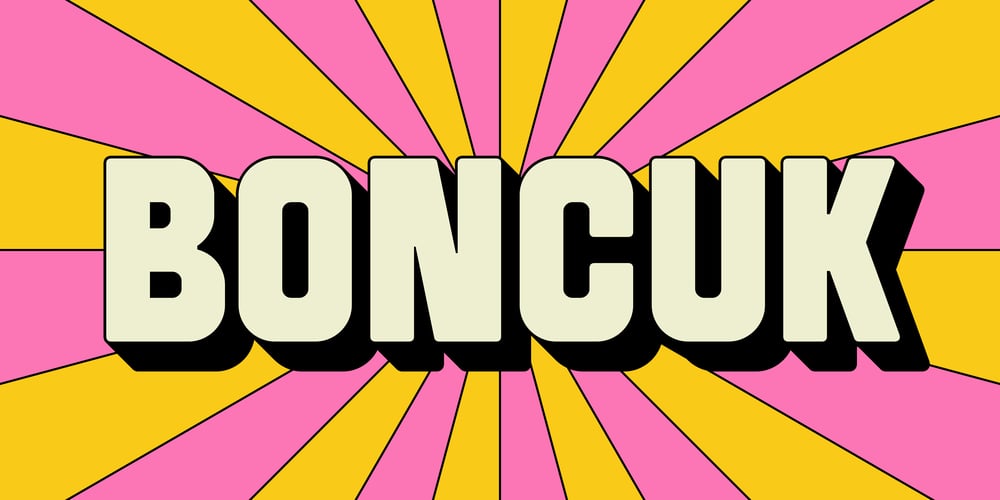
SK Boncuk Font Family was designed by Salih Kizilkaya and published by Salih Kizilkaya. SK Boncuk contains 8 styles and family package options. SK Boncuk is a very special font family I designed for my pet. Bead is a very smart and special rabbit. It can understand all commands and do whatever is said. It is very lively and fun in his daily life, but also monotonous. For this reason, I designed a fun font for him, with a single weight but with surprises. This font represents Boncuk’s fun but monotonous life.SK Boncuk offers full support for the Latin alphabet and includes all the typographic elements you will need. This font family consists of 8 different fonts and 3288 glyphs and it supports hundreds of different languages thanks to the characters it contains.